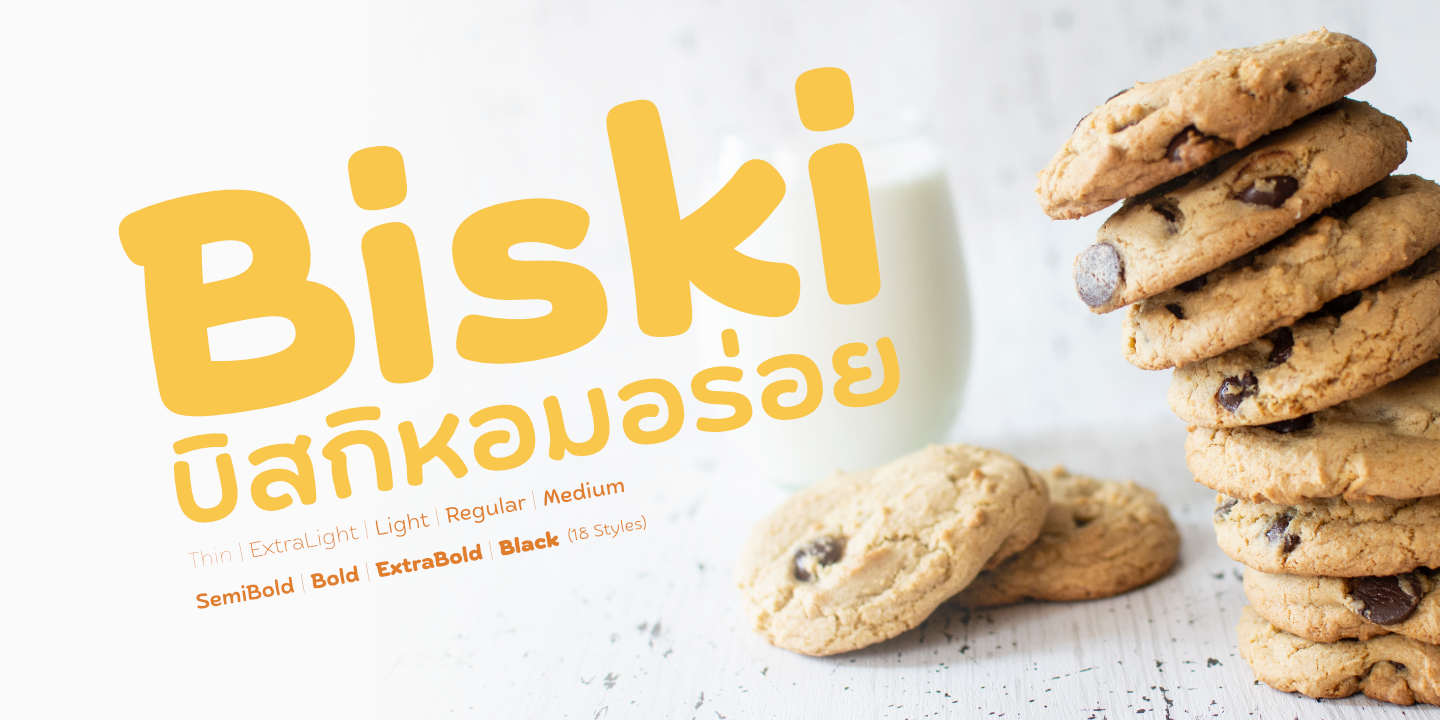
Biski Font is ideal for children's book illustrations, playful branding projects, educational materials, toy packaging, cartoon designs, gaming interfaces, youth-oriented marketing campaigns, and creative poster designs. This delightful typeface works perfectly in daycare centers, playground signage, kids' clothing brands, and interactive learning applications.
What makes Biski Font exciting is its cheerful and energetic personality that instantly brings joy to any design project. The font features rounded edges, bouncy letterforms, and a whimsical character that appeals to both children and adults. Its playful nature combined with excellent legibility makes it perfect for projects requiring a fun yet readable approach.
Biski Font family includes various weights and styles: Regular, Bold, Light, Outline, Shadow, and Condensed variations. Each style maintains the font's distinctive playful characteristics while offering designers multiple options for creating engaging visual hierarchies and dynamic layouts.
Creative professionals love Biski Font Free Download for its ability to transform ordinary text into extraordinary visual experiences. The font's versatility extends from digital applications like mobile apps and websites to print materials such as stickers, greeting cards, and educational workbooks.